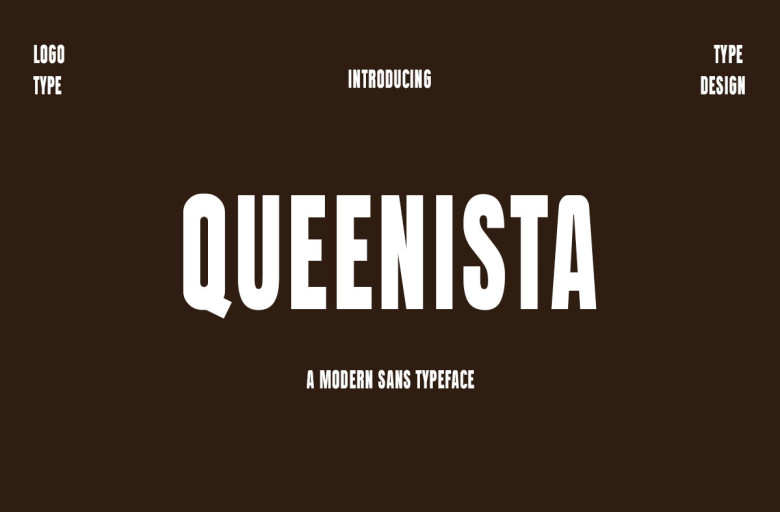
Queenista Font
Queenista is a modern and refined sans-serif font. Its clean geometry and contemporary aesthetics exude a sense of sophistication and professionalism. Use this adaptable typeface in your designs, whatever the medium and no matter whether it’s for print or screen.
Queenista Sans Serif Font